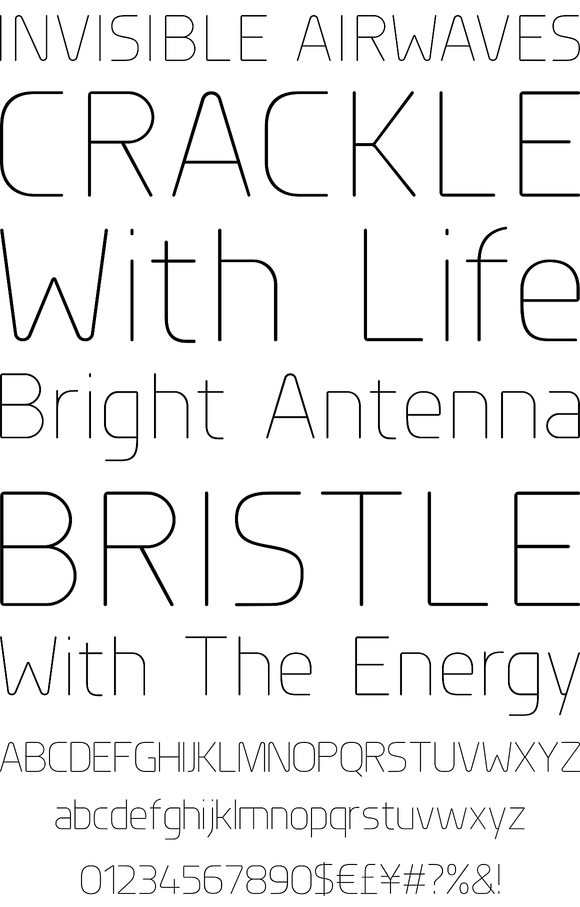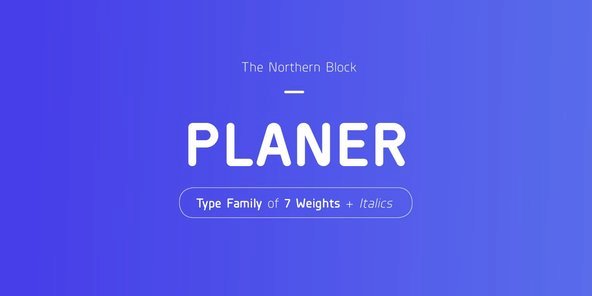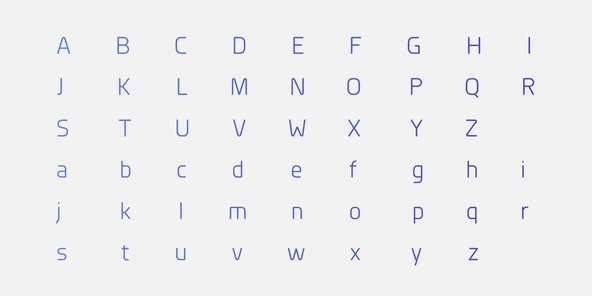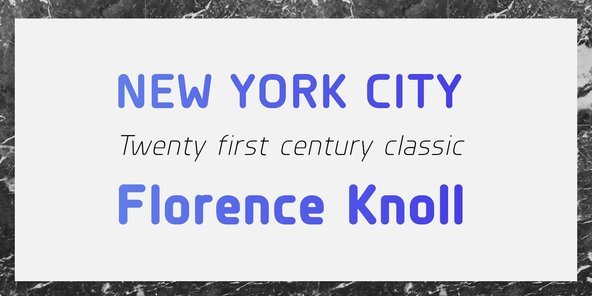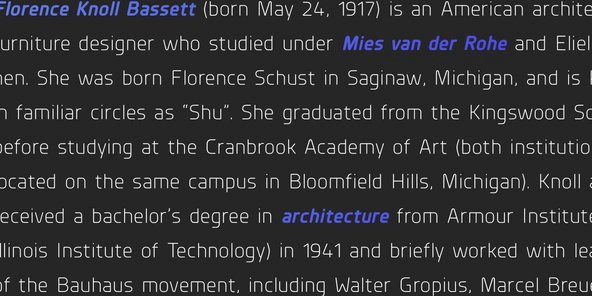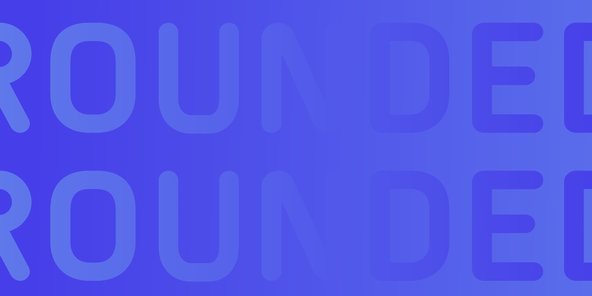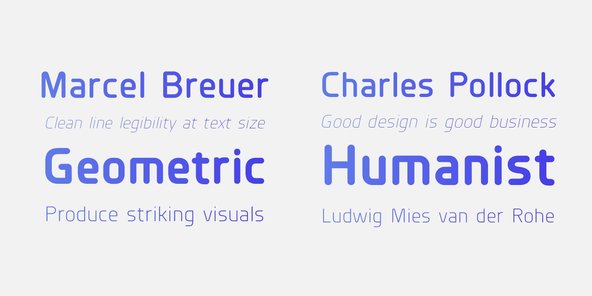
A modern rounded typeface combining humanist elements with a strong geometric grid. The result is a font that can produce striking visuals at large scale and clean line legibility at text size.
A modern rounded typeface combining humanist elements with a strong geometric grid. The result is a font that can produce striking visuals at large scale and clean line legibility at text size. Details include 4 weights, a complete character set, manually edited kerning and Euro symbol.